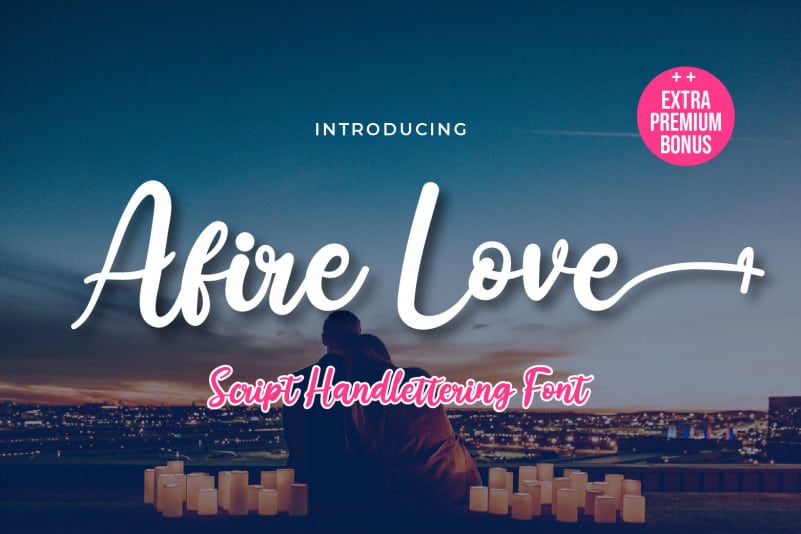
Afire Love Script Font
Afire Love Script Font is created with original hand drawn strokes for a relaxed, beautiful and elegant impression. This font also offers beautiful abstract typographic harmony for a wide variety of design projects, including natural handwriting in digital form for designs, quote designs, for social media business designs, advertisements, trademarks, promotional banners, posts, posters, signatures, and all designs require handwriting or whatever design you want.